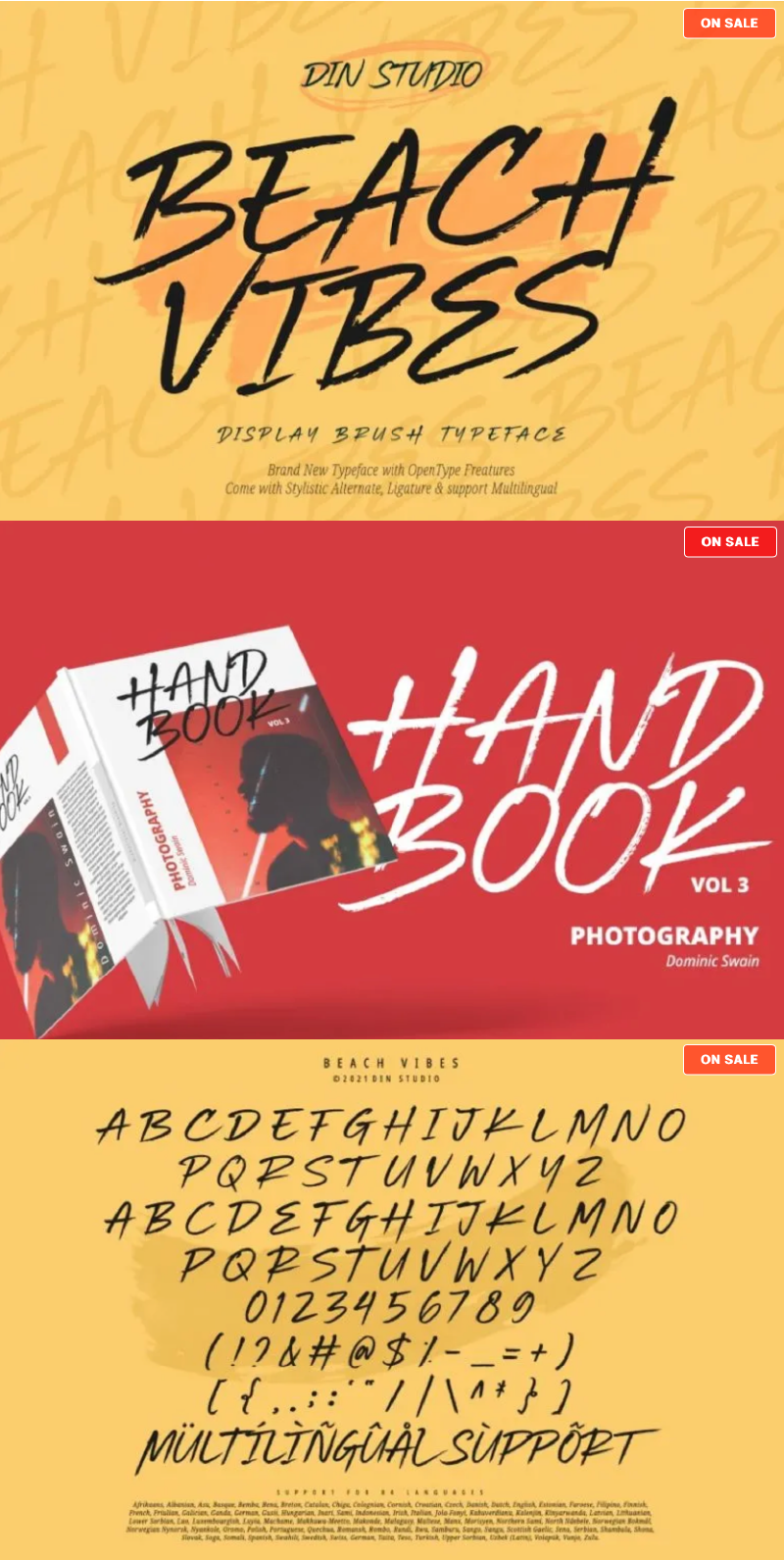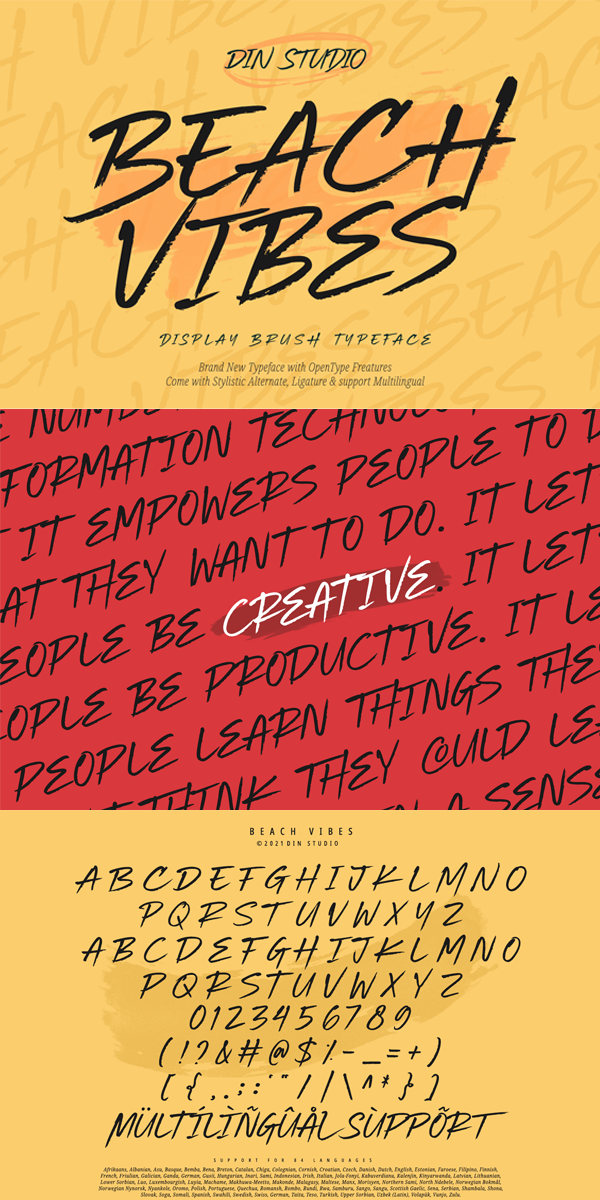
Beach Vibes Font
About Beach Vibes
Beach Vibes’ – A Display Brush Font.
Beach Vibes is an awesome font accompanied with a fabulous handcrafted script brush font working together in a perfect harmony. This font is all made in the uppercase which is nice to see and is easy to read. It is designed primarily as a captivating font to add the right amount of modernity and style. It is also a great choice for your logo, book cover, poster, t-shirt, branding, and advertisement needs.
Our font always includes Multilingual Support to make your branding reach a global audience. See the previews above to get to know how to use them. Happy Desinging!